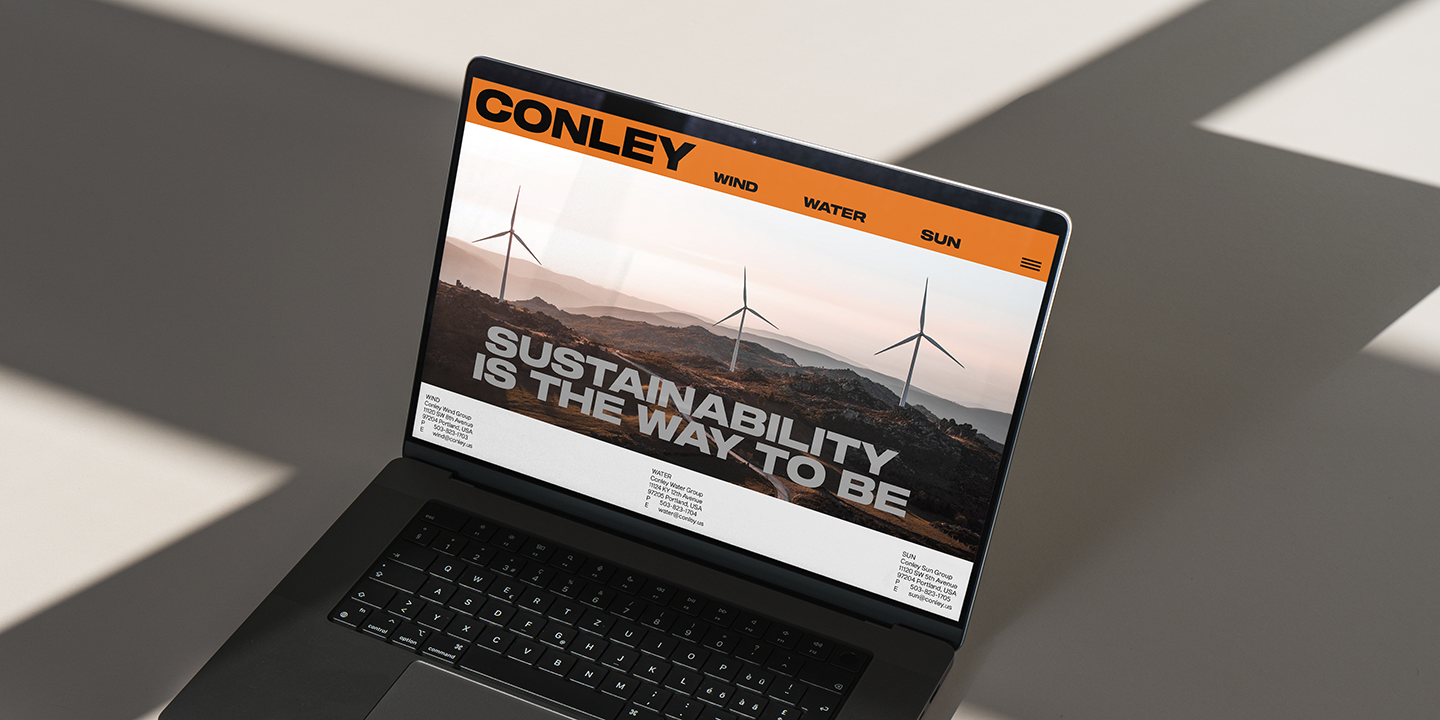
Sequel 100 Black Font Free Download is a bold, contemporary sans-serif typeface that delivers a strong, impactful presence. Perfect for headlines, posters, branding, logos, and high-visibility designs, this font combines geometric shapes with modern aesthetics to create an eye-catching look. Sequel 100 Black Font is ideal for projects that require a bold statement, providing strength and clarity while maintaining a clean, modern style.
With Sequel 100 Black Font Free Download, you’ll receive a complete set of uppercase letters, lowercase, numbers, and essential punctuation, offering versatility for both print and digital applications. Whether you're designing bold marketing materials, creating a dynamic logo, or producing high-contrast posters, this font ensures your designs stand out with confidence and style.
Make a bold statement with Sequel 100 Black Font Free Download. Its strong, modern design makes it the perfect choice for designs that need to be powerful, striking, and memorable.